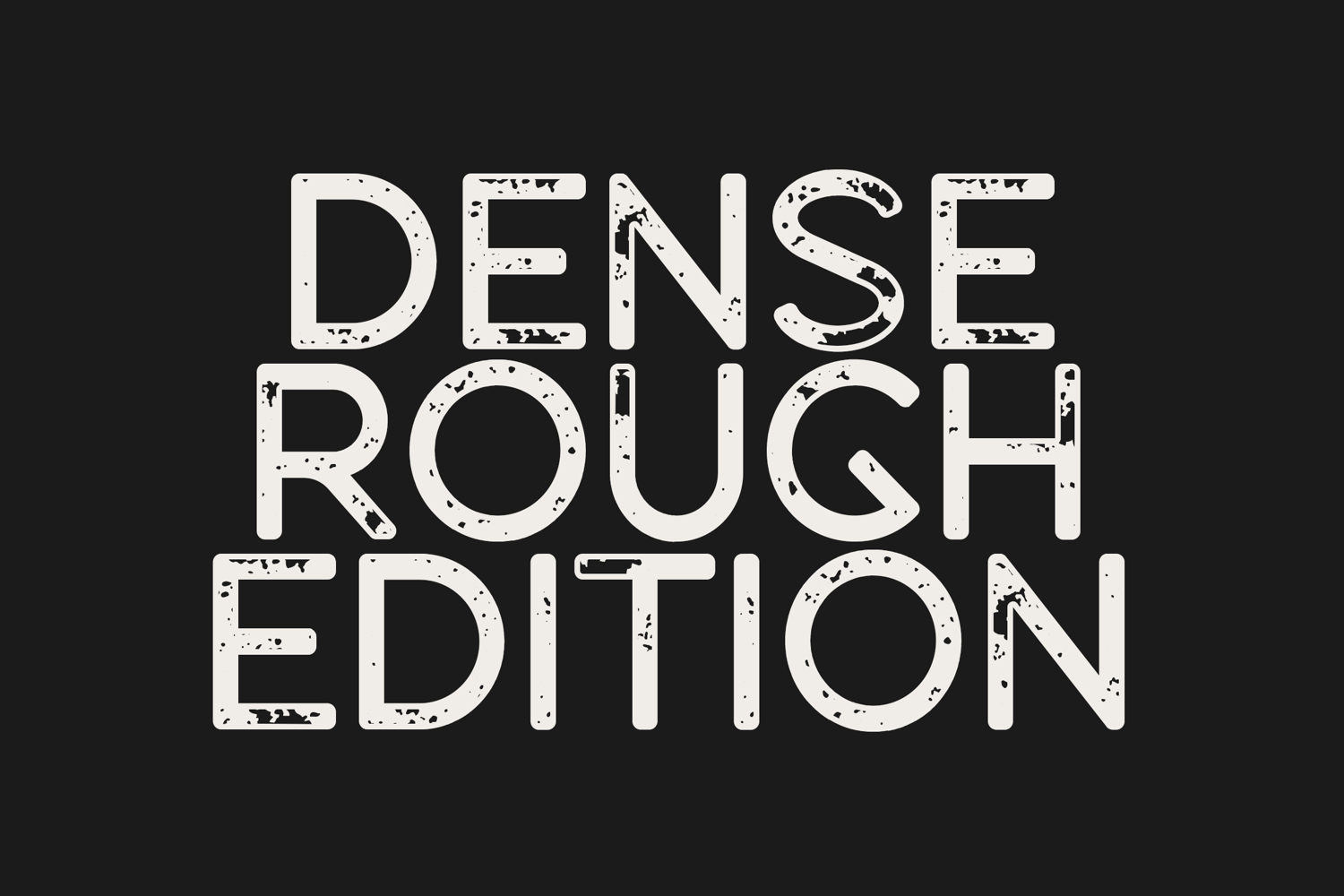
Dense Rough Distressed Sans Serif Font
Introducing Dense Rough, a bold distressed sans serif font designed to bring authentic texture, character, and impact to your creative projects.
Featuring clean geometric forms combined with carefully crafted worn details, Dense Rough delivers the perfect balance between modern simplicity and rugged vintage aesthetics. The distressed texture creates a naturally weathered appearance that works beautifully in both large headlines and branding applications.
Whether you're creating bold posters, streetwear graphics, brewery labels, outdoor branding, packaging, logos, social media content, or industrial-inspired designs, Dense Rough adds personality and visual depth without sacrificing readability.
Its versatile uppercase and lowercase characters, multilingual support, and authentic rough texture make it a valuable addition to any designer's font collection.
Features- Uppercase & Lowercase Letters
- Numbers & Punctuation
- Extended Latin Characters
- Authentic Distressed Texture
- Clean Sans Serif Construction
- Logo Design
- Branding Projects
- Streetwear Graphics
- Posters & Flyers
- Packaging Design
- Brewery Labels
- Coffee Branding
- Outdoor Advertising
- Music Covers
- Merchandise Design
- Social Media Graphics
- Industrial & Vintage Projects